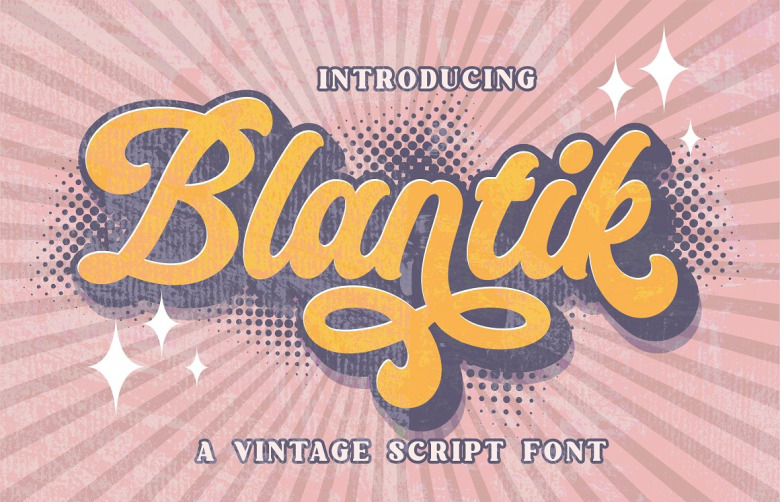
Blantik Font
Introducing Blantik Script Font. This font was created with a one-of-a-kind curve and has a vintage touch, with a nice swash. The architecture is ideal for both of your designs. Logos, posters, film titles, brand names, novel covers, flyers, and much more.
Blantik Vintage Script Font